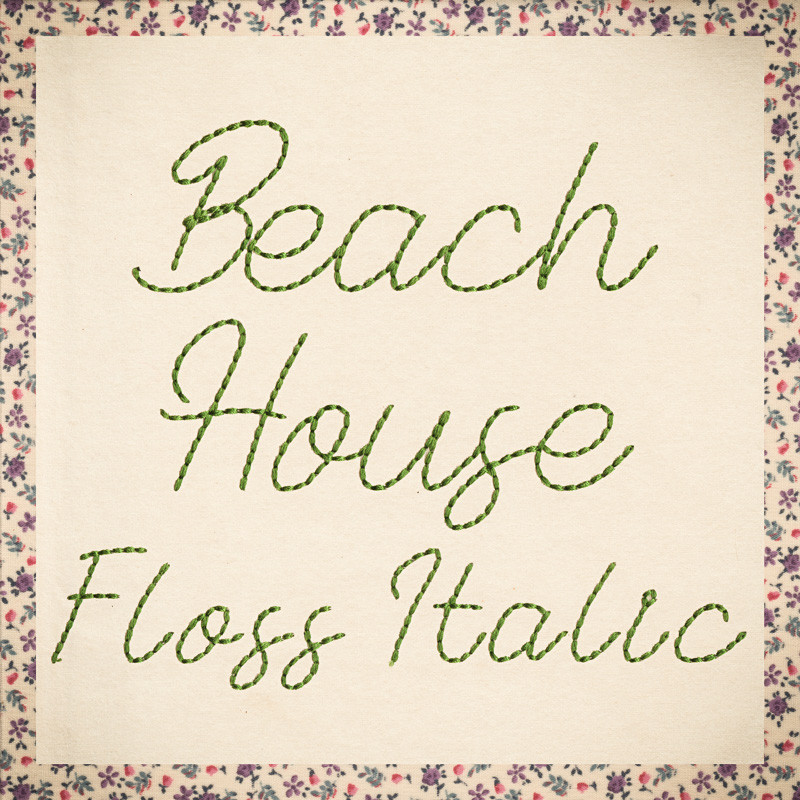
807 Beach House Italic Floss Font
807 Beach House Italic Floss Font comes in 1", 1.5", 2", 2.5", 3", 3.5", 4", 4.5"and 5" heights based on the capital "A". All sizes include uppercase letters, lowercase letters, numbers and 13 punctuation marks. Lowercase letters have left-to-right connection points to reduce floating stitches. All sizes are finished in Floss Stitch. ● See the character chart above to view individual letters and letter placement.